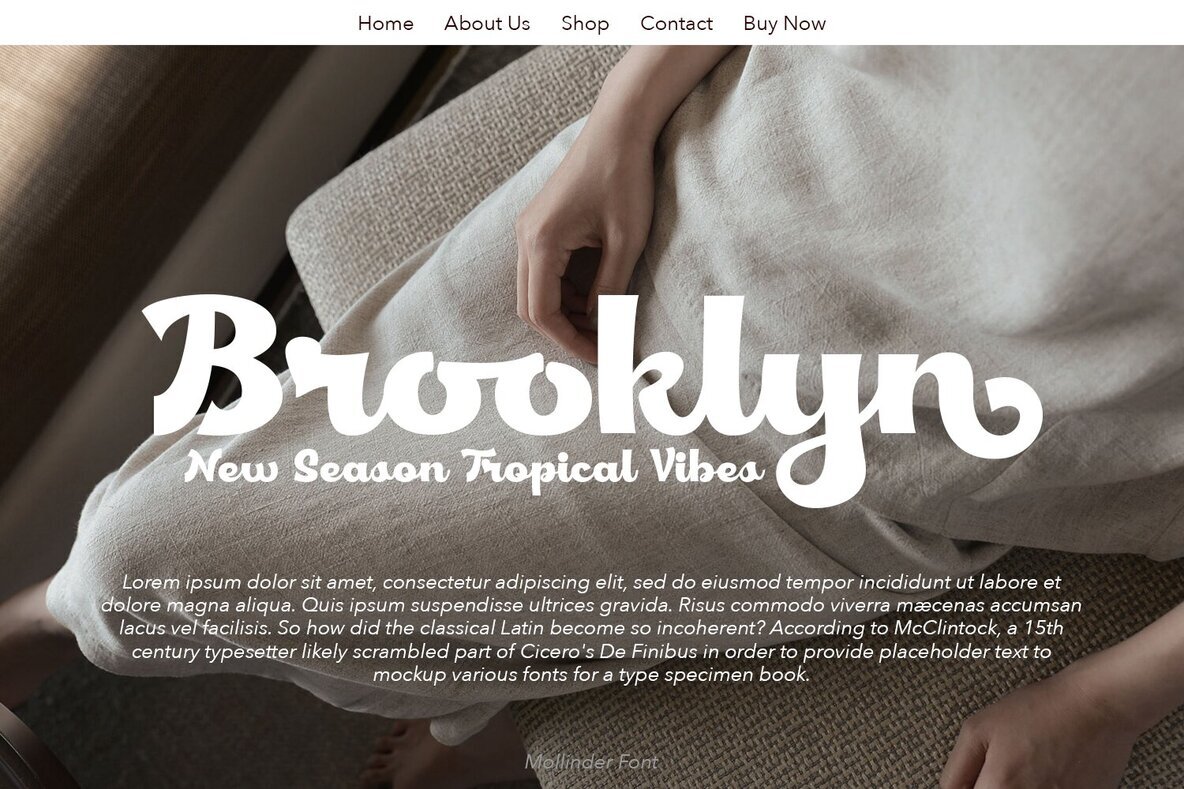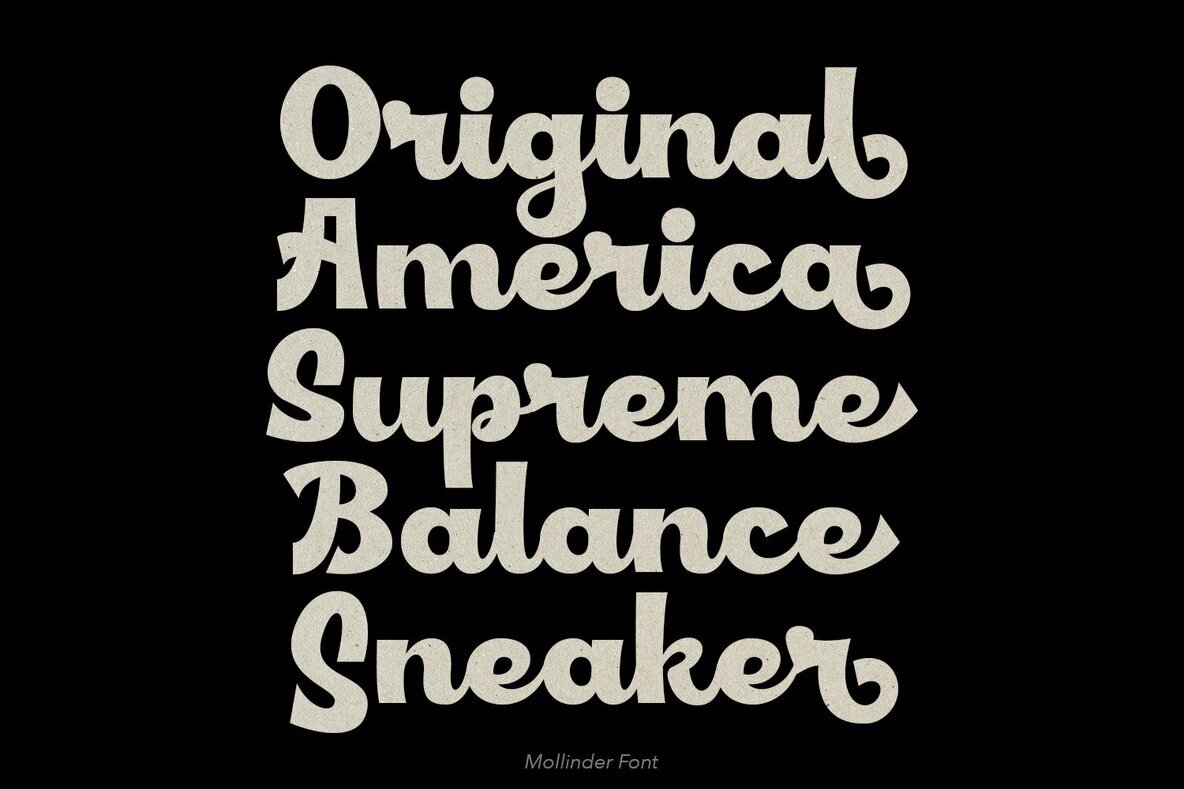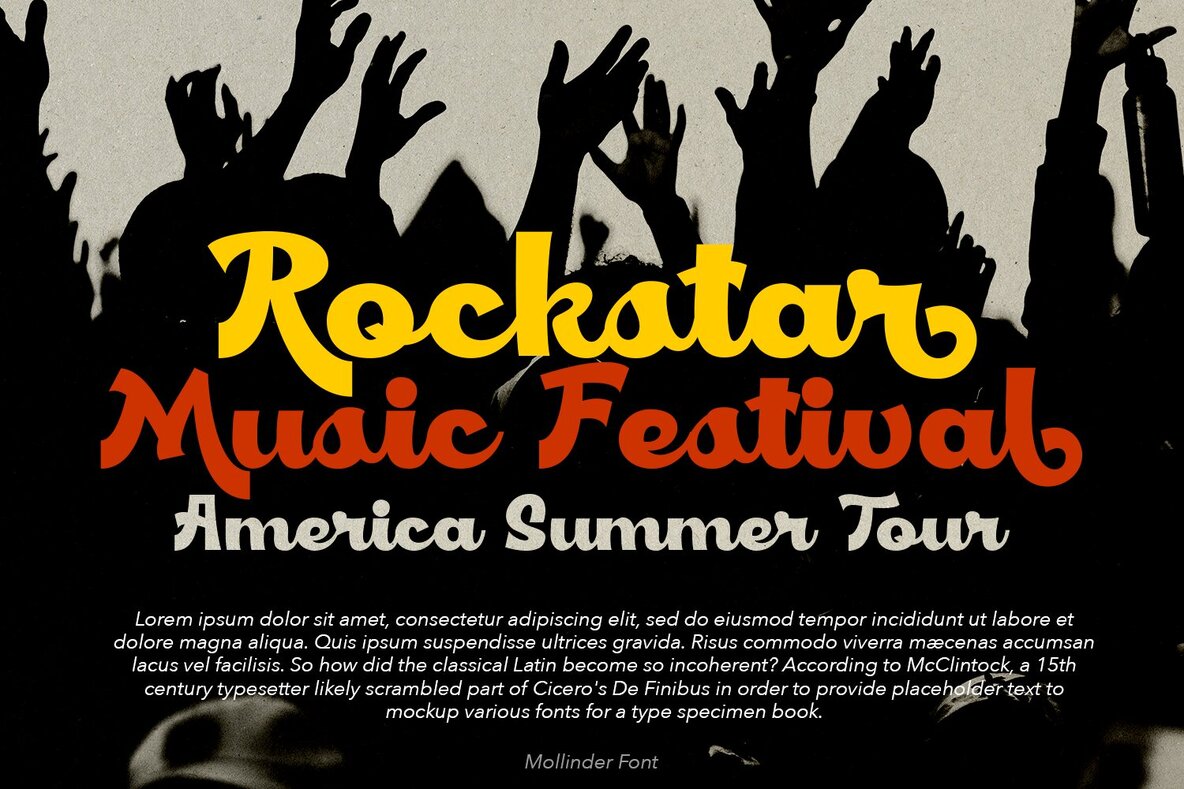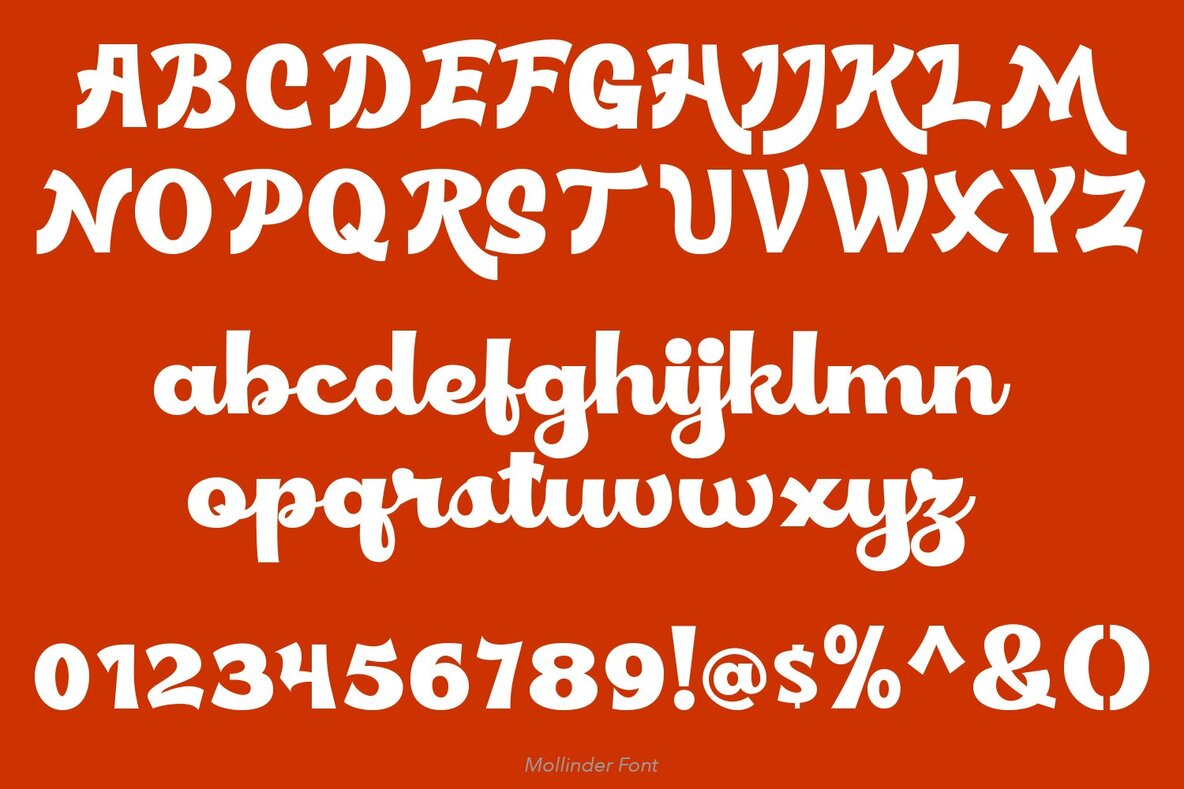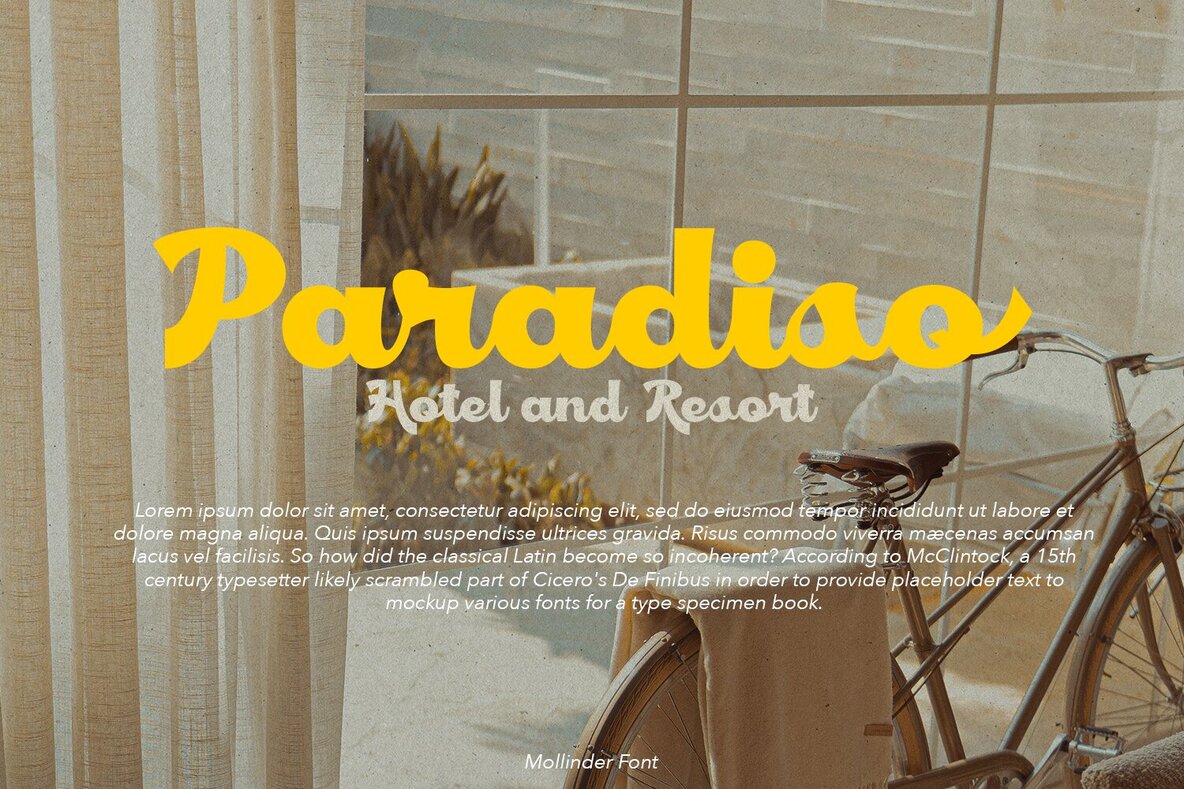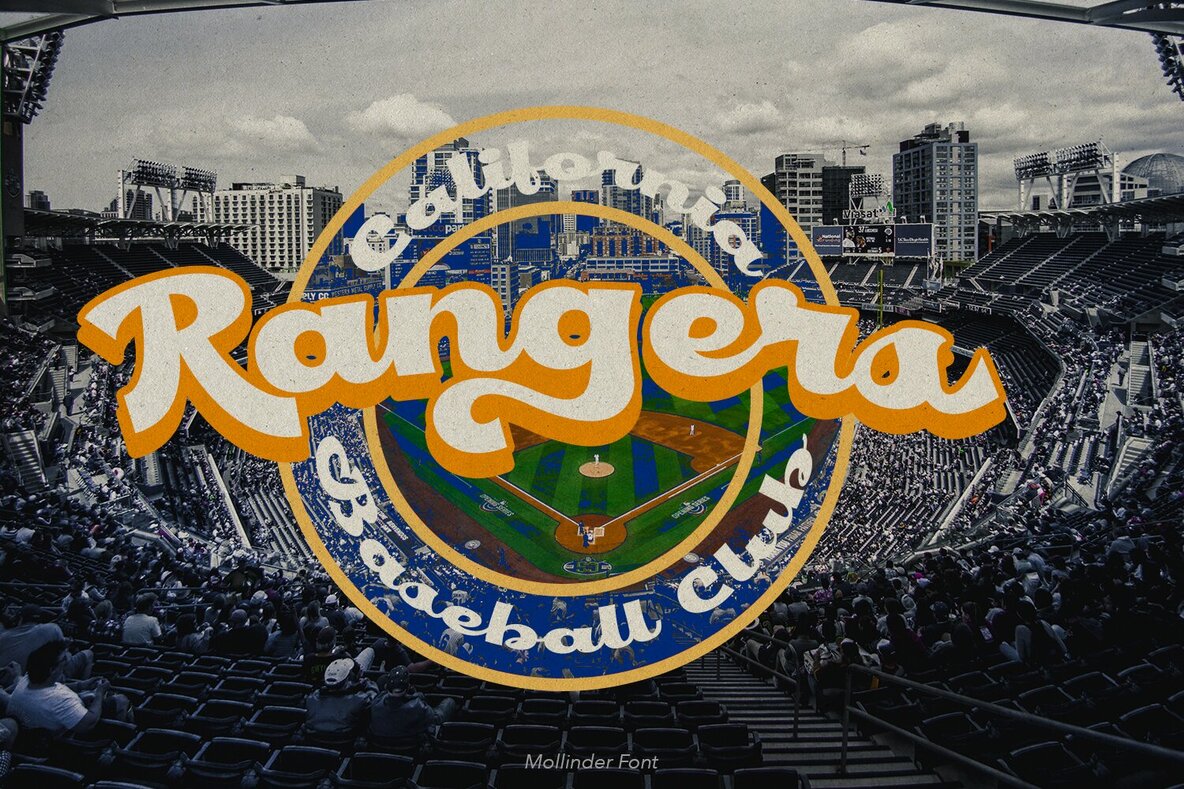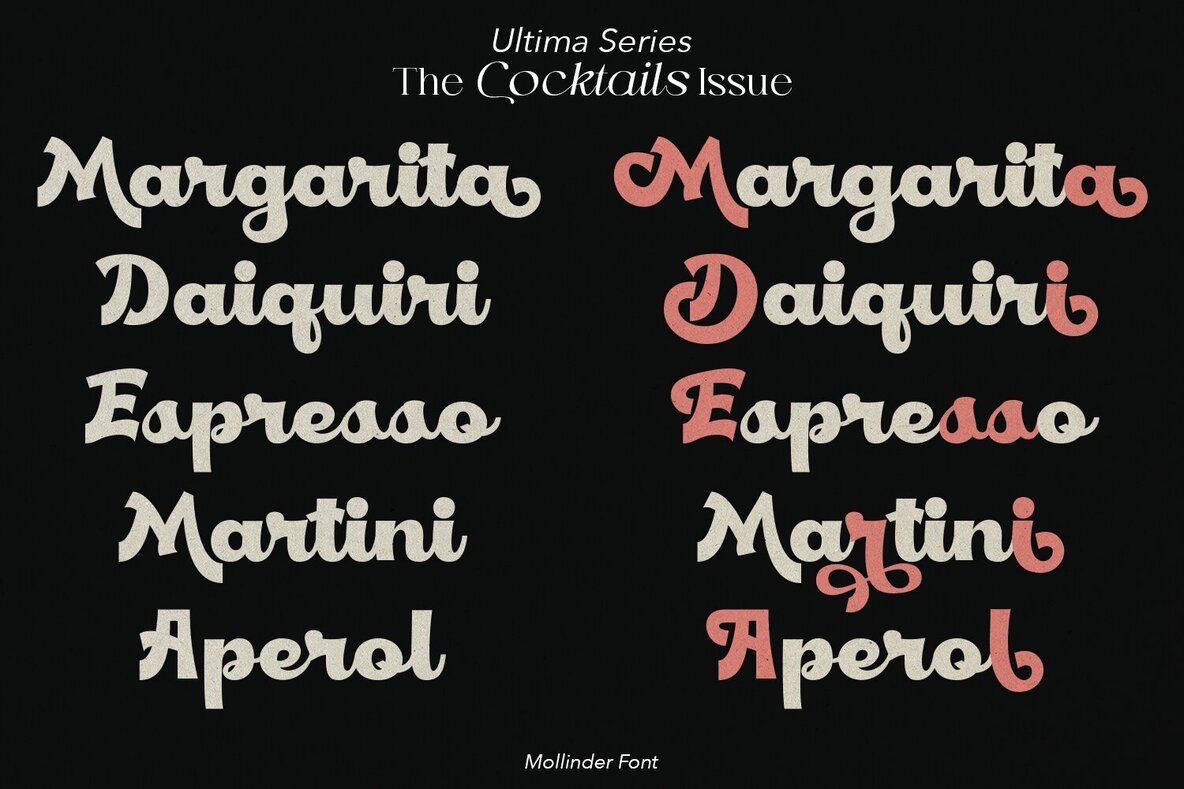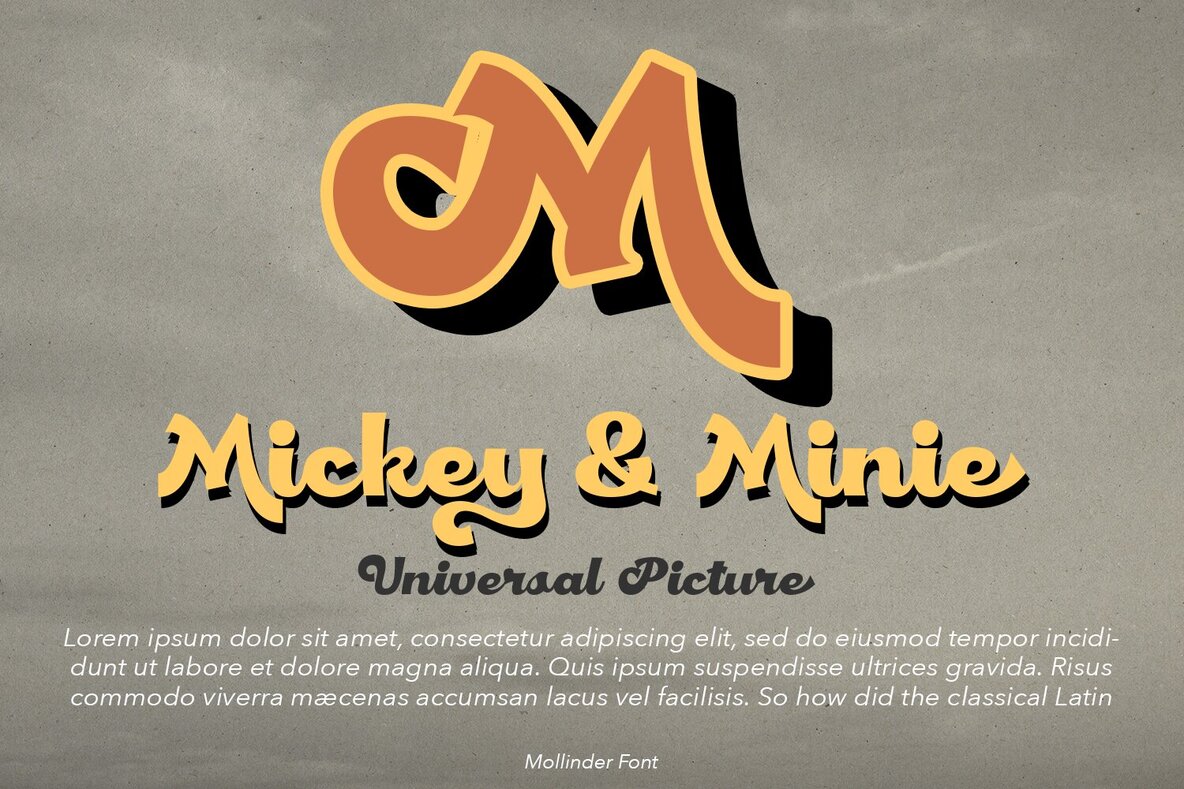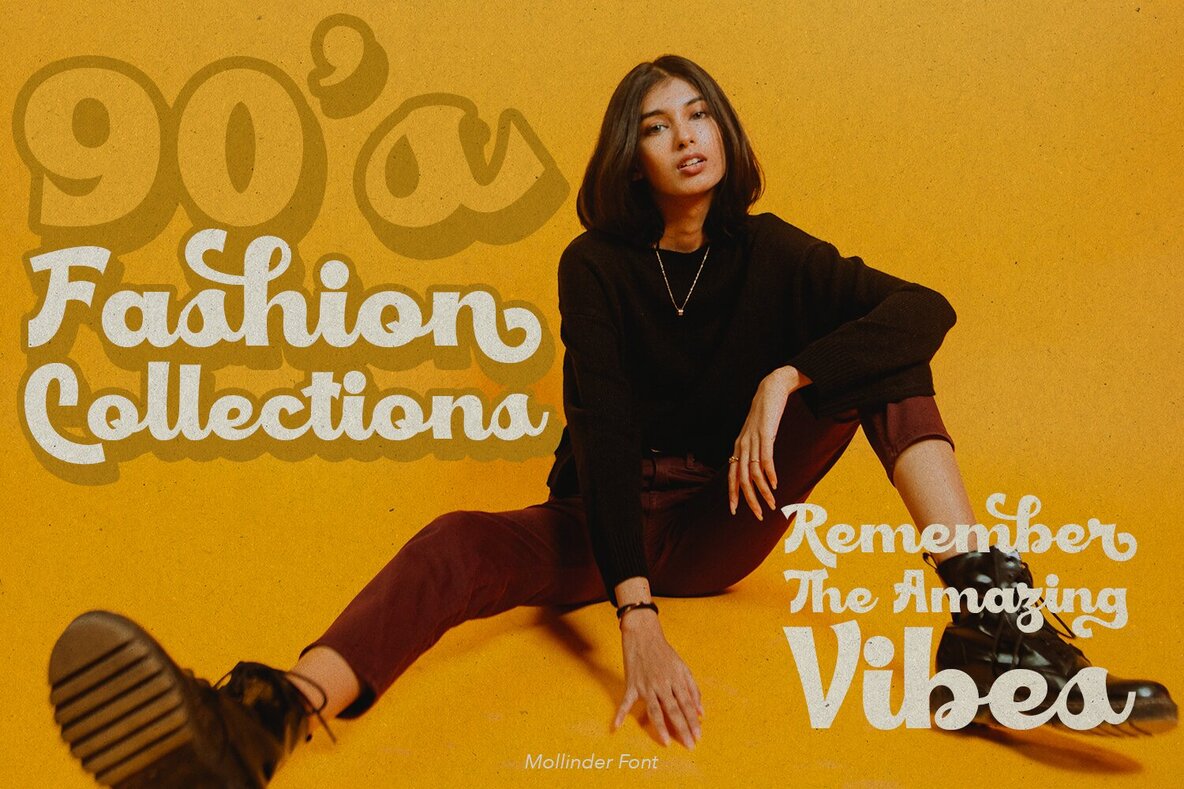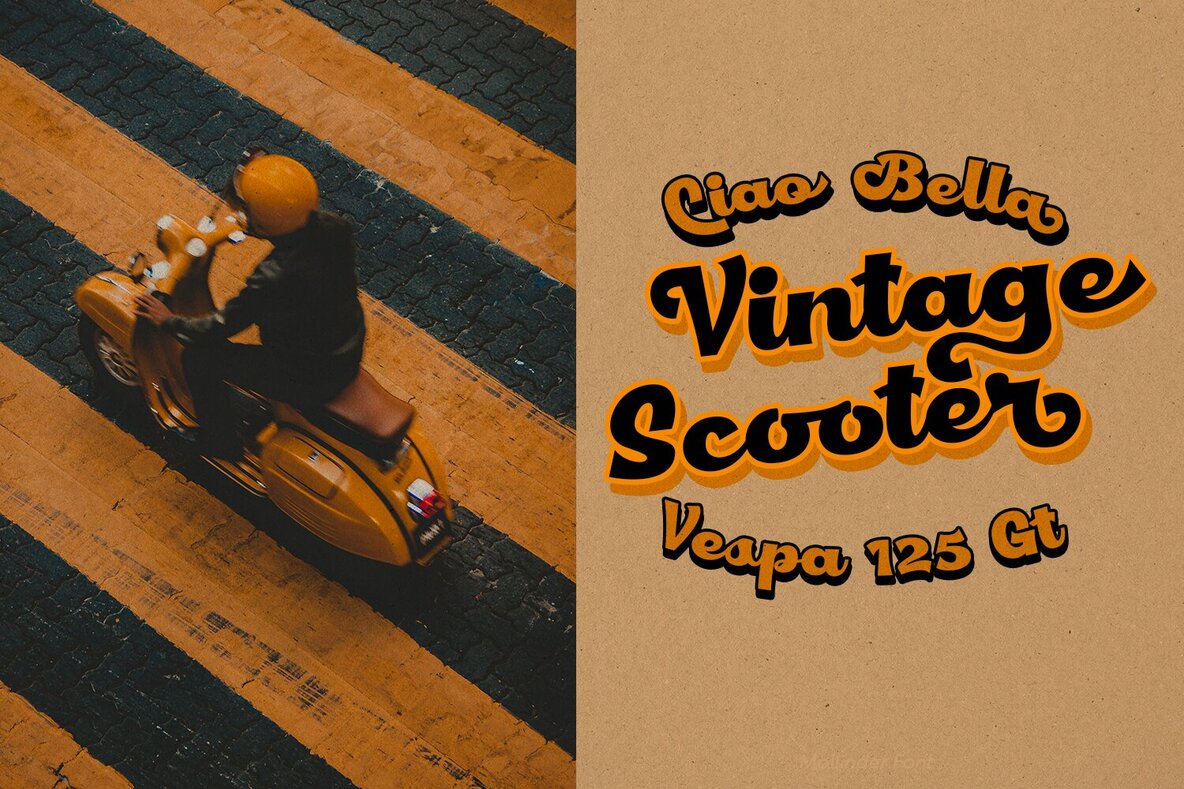
Mollinder Font
Mollinder Regular
Mollinder is an aesthetic script font featuring a retro and refined style, designed to create a rhythmic flow for comfortable reading. This font is perfect for a variety of projects, including logotypes, stickers, greeting and wedding cards, packaging design, headlines, brand identity, t-shirts, posters, magazines, books, Instagram, websites, and more.Mollinder: Aesthetic Script with Retro Style